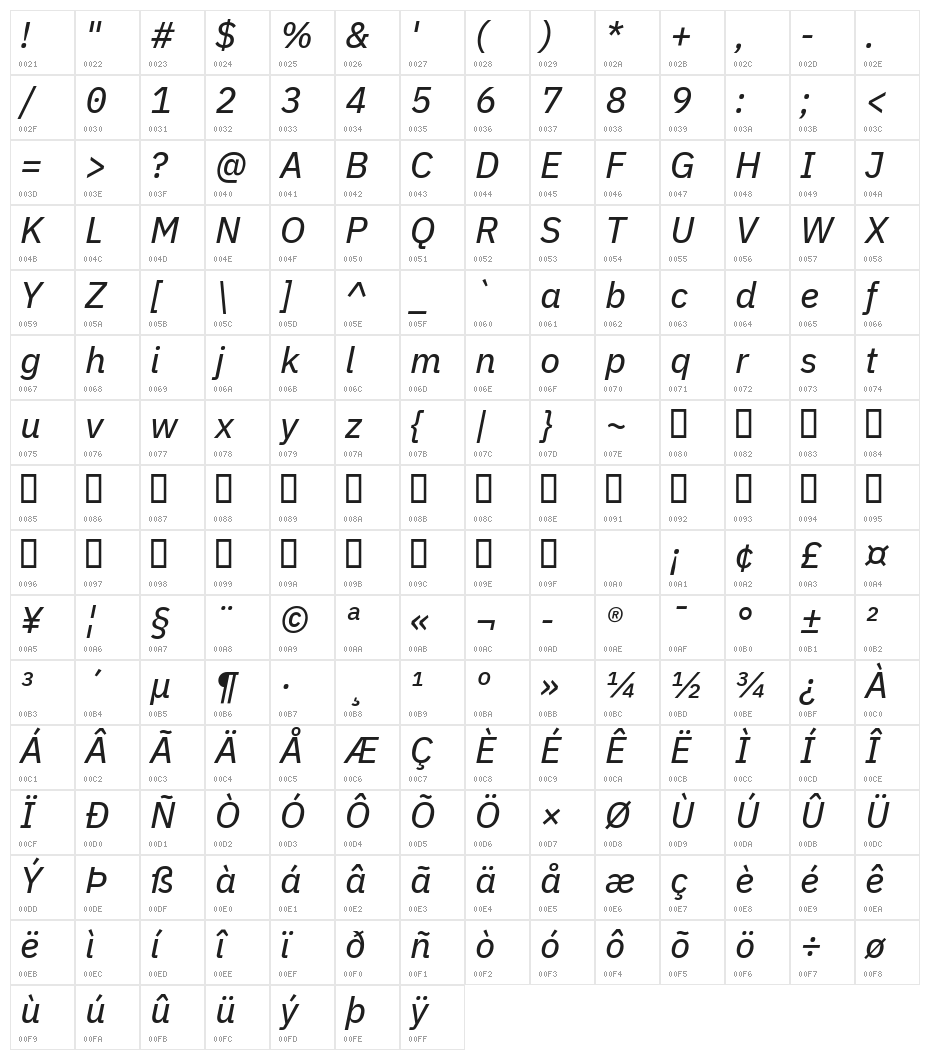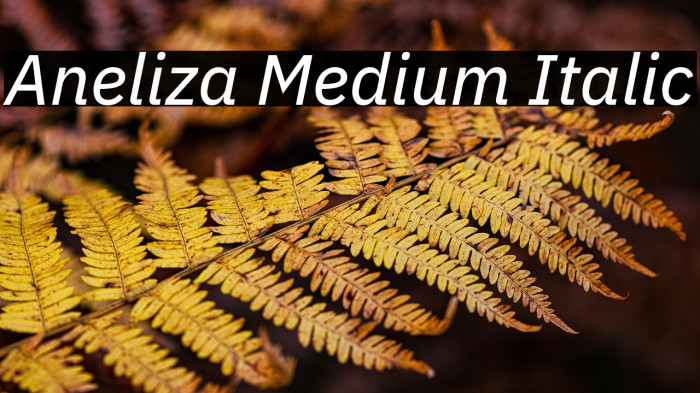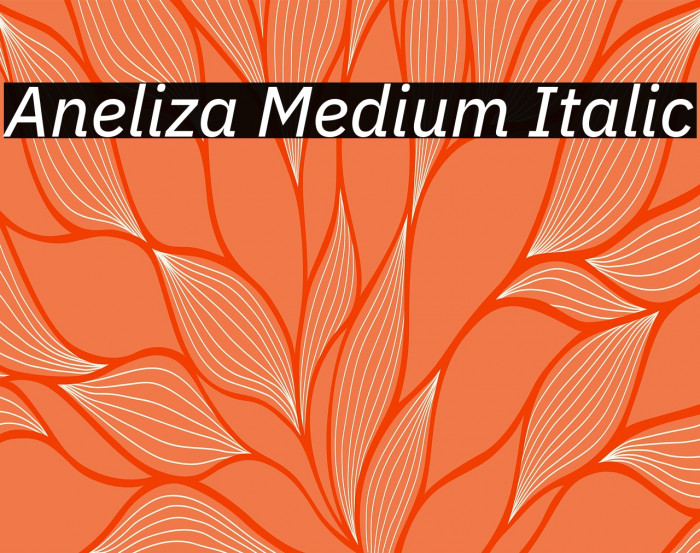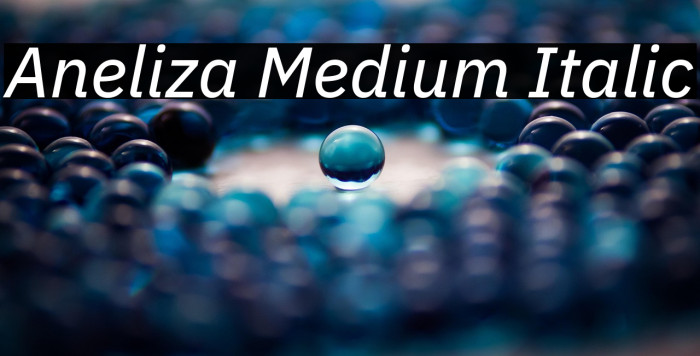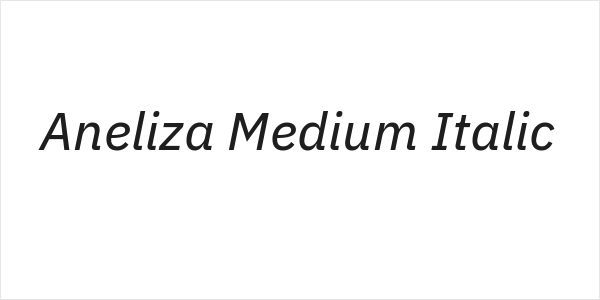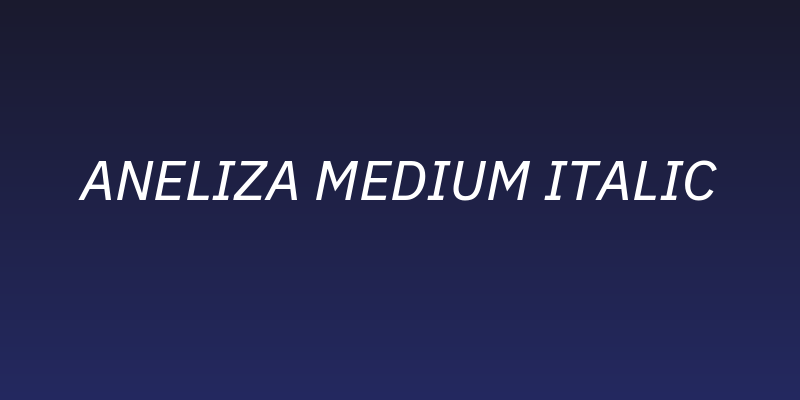
Aneliza Medium Italic Font
Aneliza Medium Italic Description
This font features a sleek and modern design with a slight italic slant, giving it a dynamic and elegant appearance. The characters are well-proportioned, with a consistent stroke width that maintains readability across different sizes. The uppercase letters are bold and commanding, while the lowercase letters offer a softer, more approachable feel. Numerals are clear and distinct, making them suitable for both text and numerical data. Special characters are well-integrated, maintaining the font's overall aesthetic. The font's clean lines and contemporary style make it versatile for various design applications.